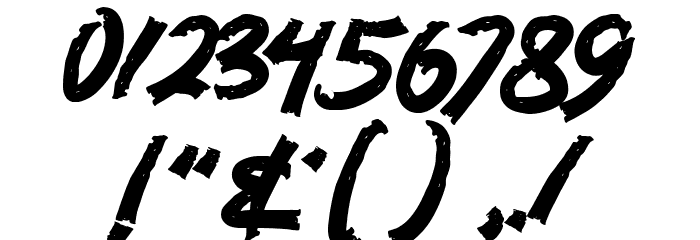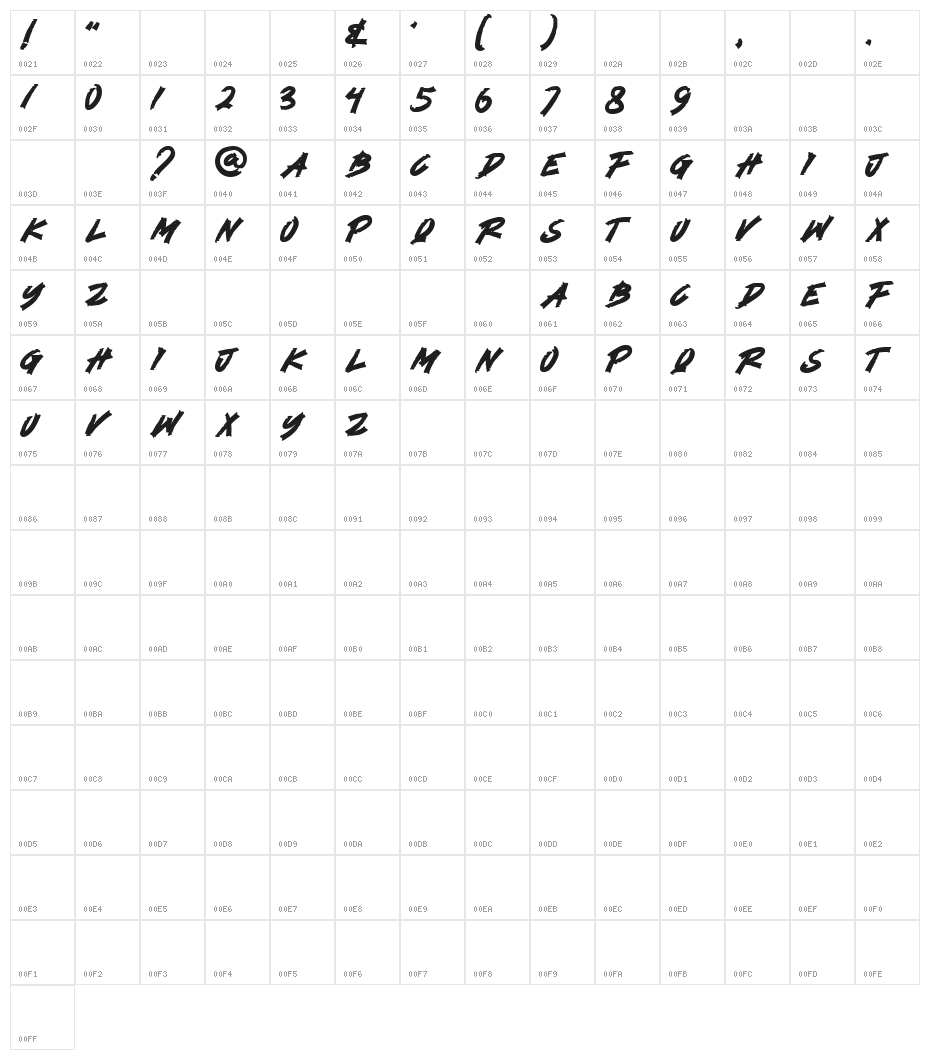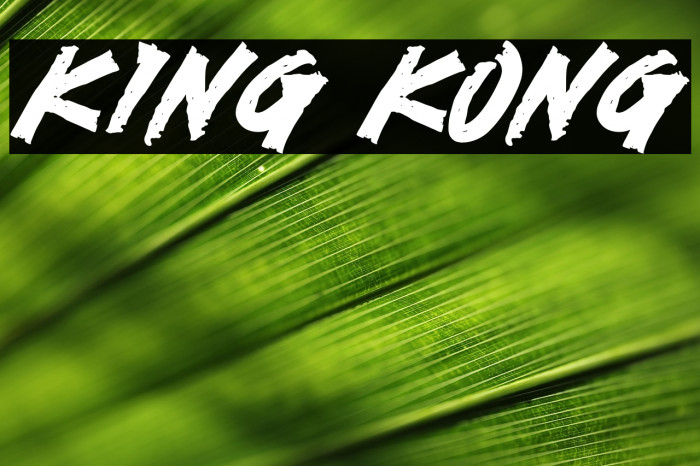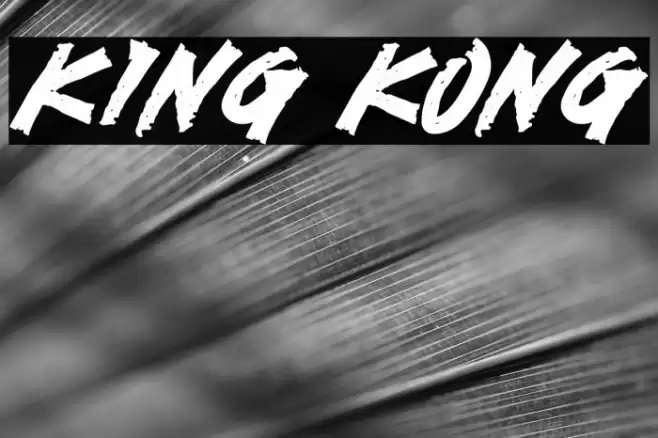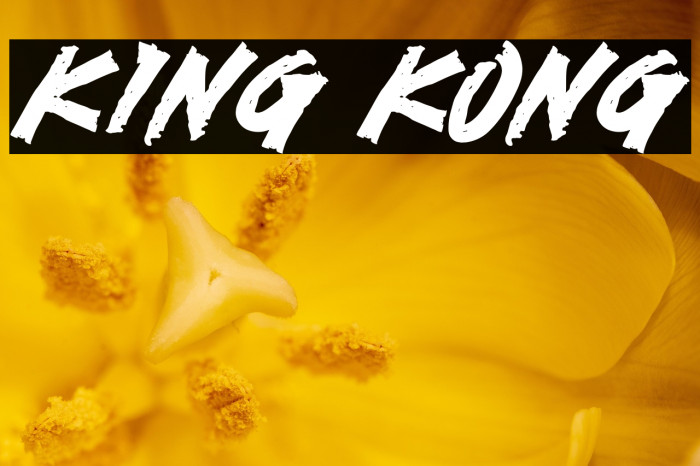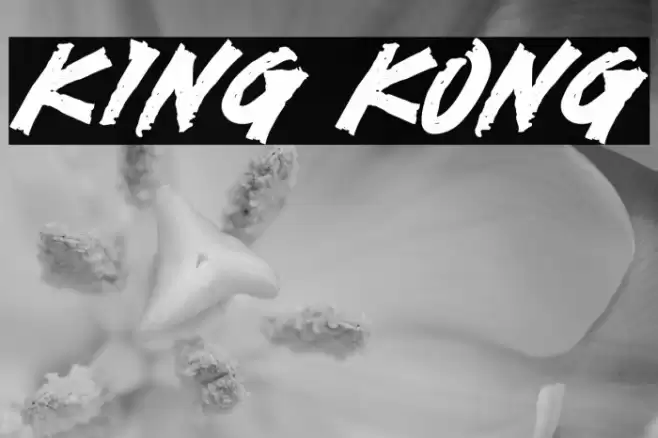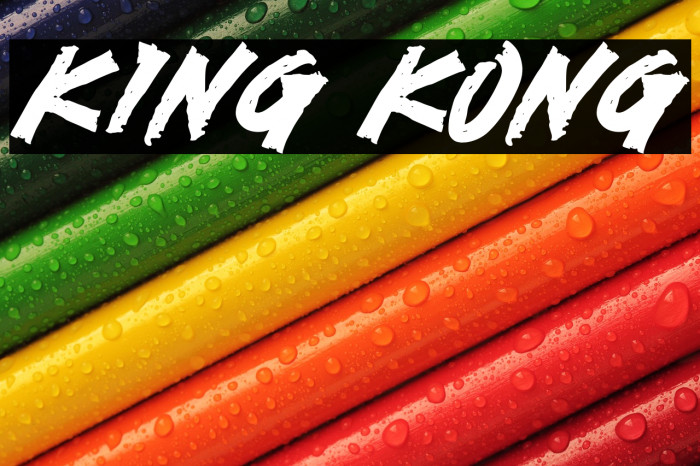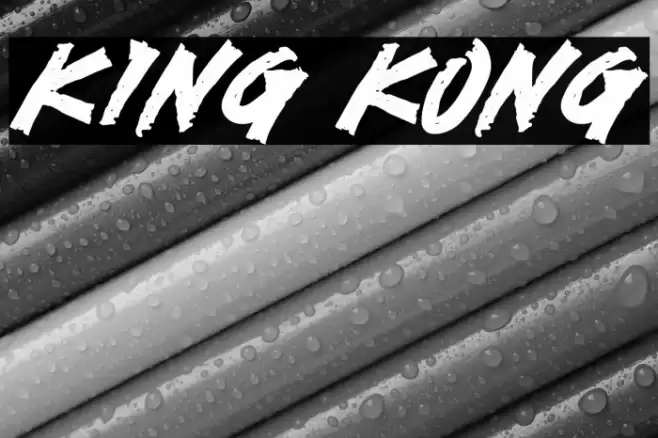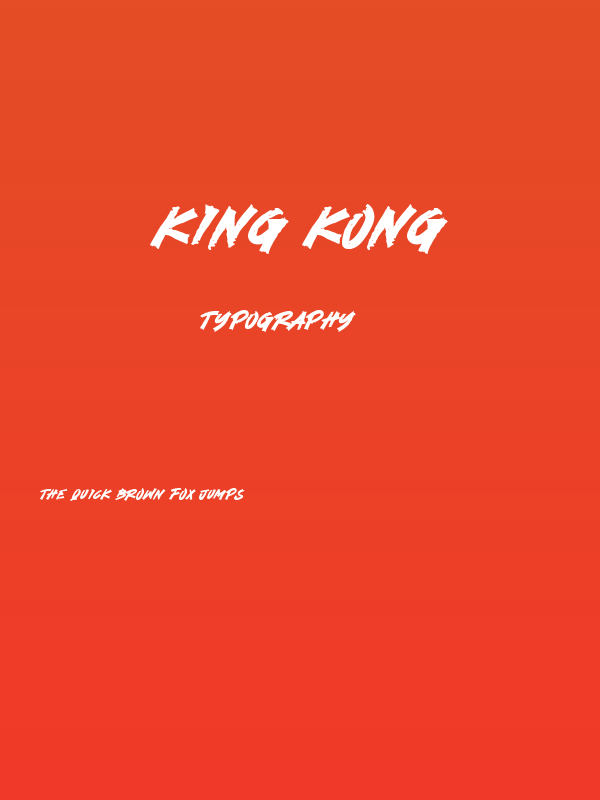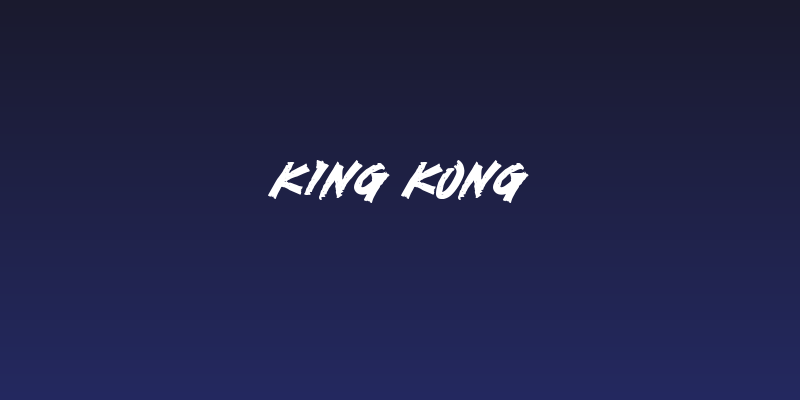
KING KONG Font
KING KONG Description
This font features a bold and dynamic brush script style, characterized by its energetic and expressive strokes. The letters have a hand-painted appearance, with varying thicknesses that add a sense of movement and vitality. The uppercase and lowercase letters maintain a consistent style, with sharp angles and fluid curves that create a cohesive look. The numbers and special characters are equally bold, ensuring they stand out in any design. This font's unique style makes it ideal for projects that require a strong visual impact.
| Proposed Projects | Ideal for posters, branding, merchandise, and any design needing a bold, energetic touch. |